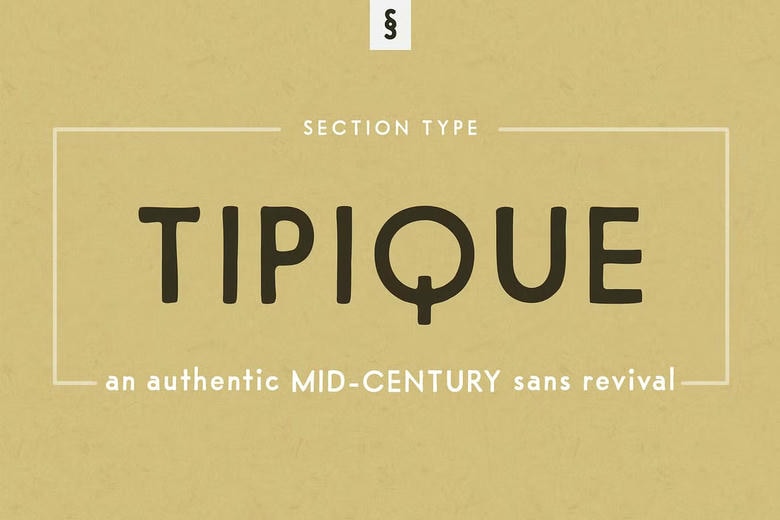
Tipique is a resembles another typeface but it is not the much-used Futura. Our new font Tipique Regular is based on an originally distard type face of the early thirties which was inspired by geometric Bauhaus typography as to its general outlines.
As the case is with its relatives Erbar, Futura, Spartan, Kabel, and other equivalents, Tipique’s original figures were created in metal. However, prior to the present, specifically the printed forms of this particular face have not been issued a digital overhaul.